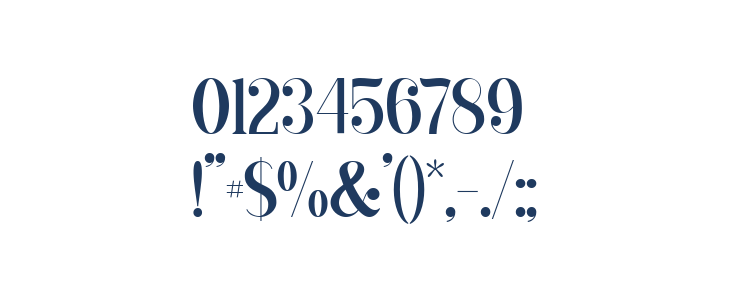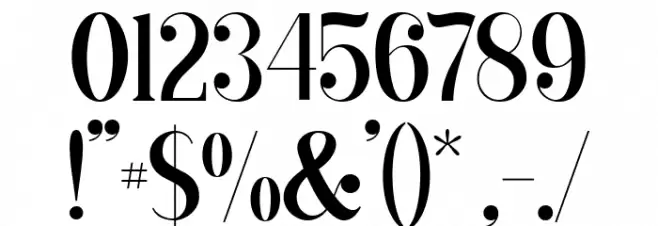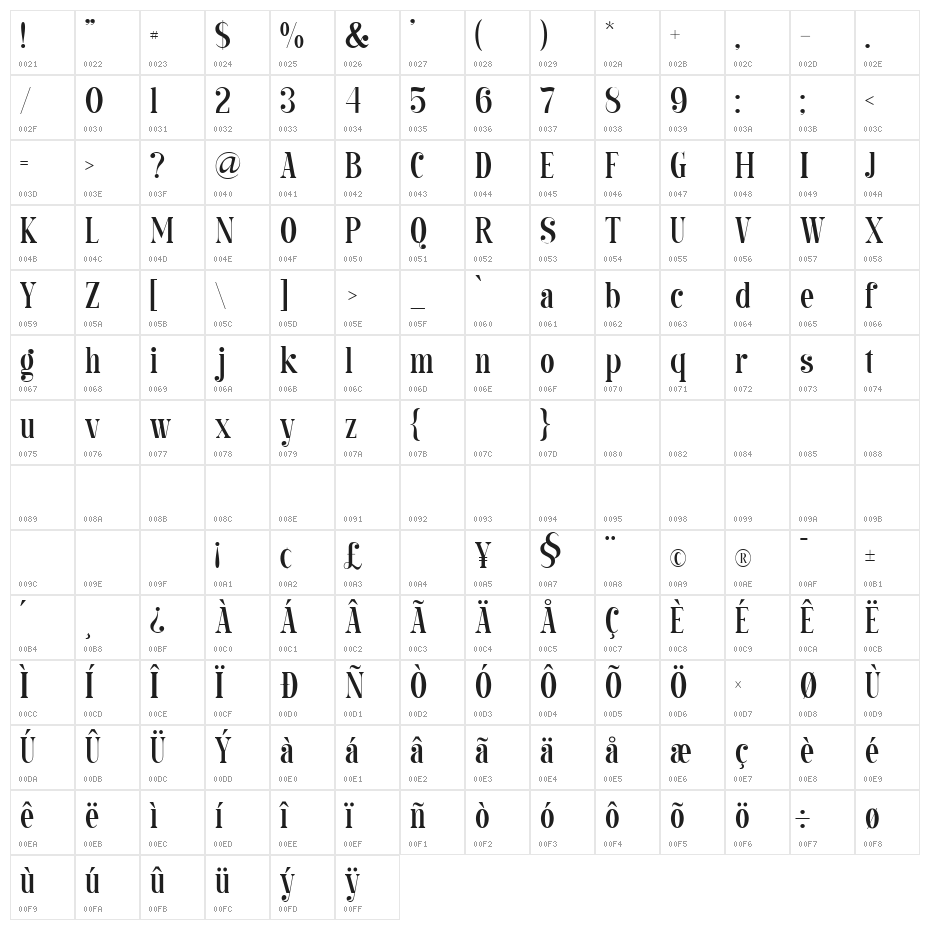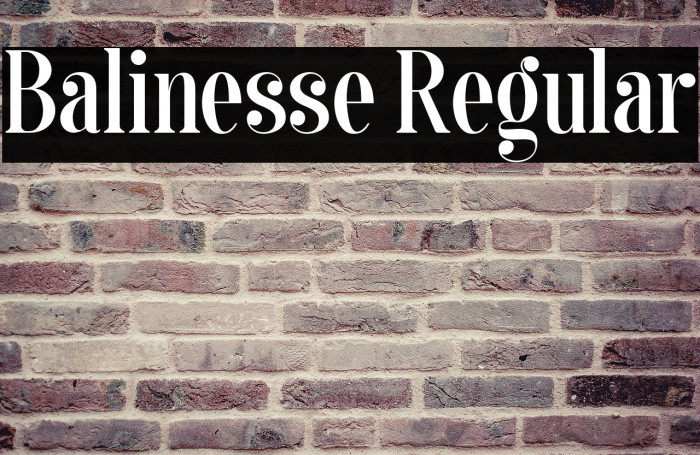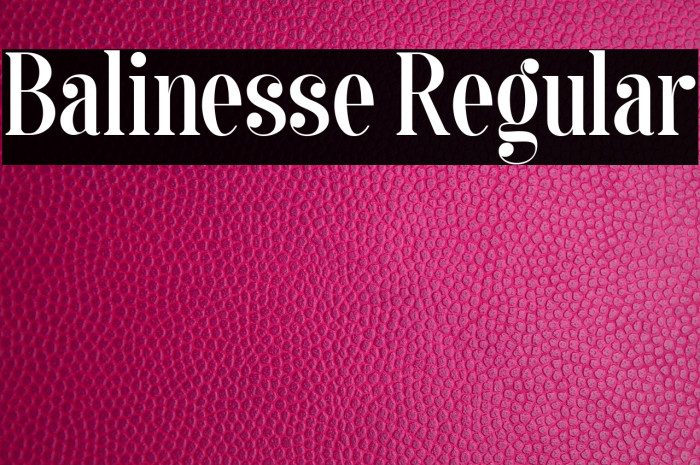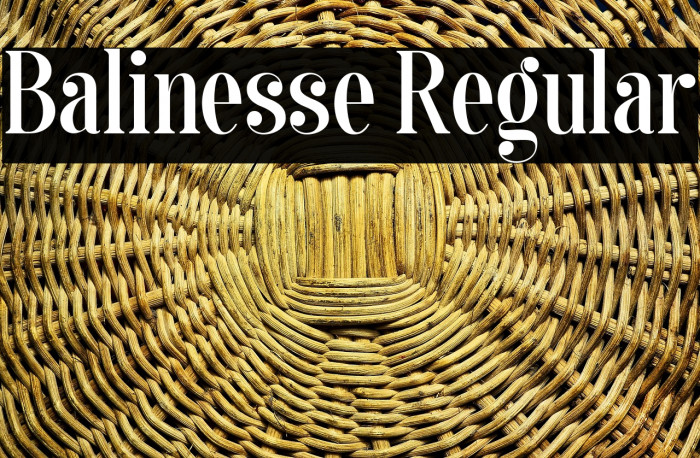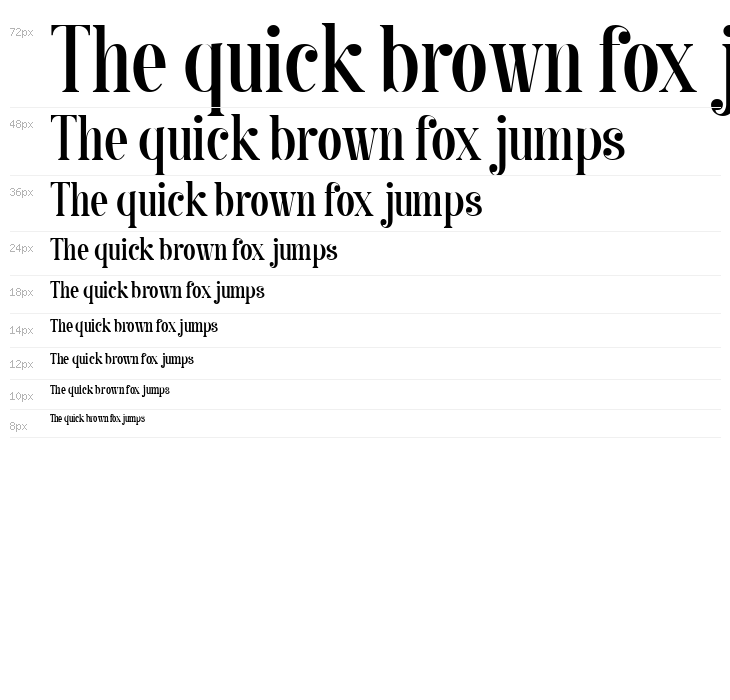
Balinesse Regular Font
Balinesse Regular Description
This font features a distinctive blend of elegance and boldness, characterized by its high contrast between thick and thin strokes. The uppercase letters exhibit a refined and sophisticated style, with sharp serifs and a vertical emphasis that adds to its formal appearance. The lowercase letters maintain this elegance, with unique curves and flourishes that give the font a decorative touch. The numerals are consistent with the overall style, offering a balanced and cohesive look. Special characters are thoughtfully designed, maintaining the font's aesthetic integrity. This font is ideal for projects that require a touch of sophistication and flair.